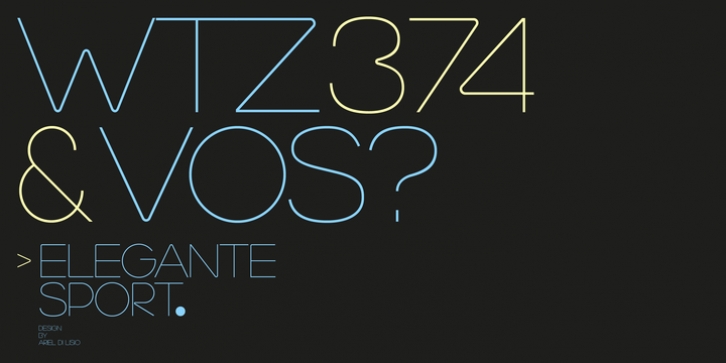
Marzo was designed by Alejandro Paul, Ariel Di Lisio and published by Sudtipos. Marzo contains 1 style.
Marzo is a monoline, minimalist, modern typeface, that tries to take its forms to a state of natural purity, definitively elegant.
Designed by Ariel Di Lisio and digitized by Alejandro Paul.